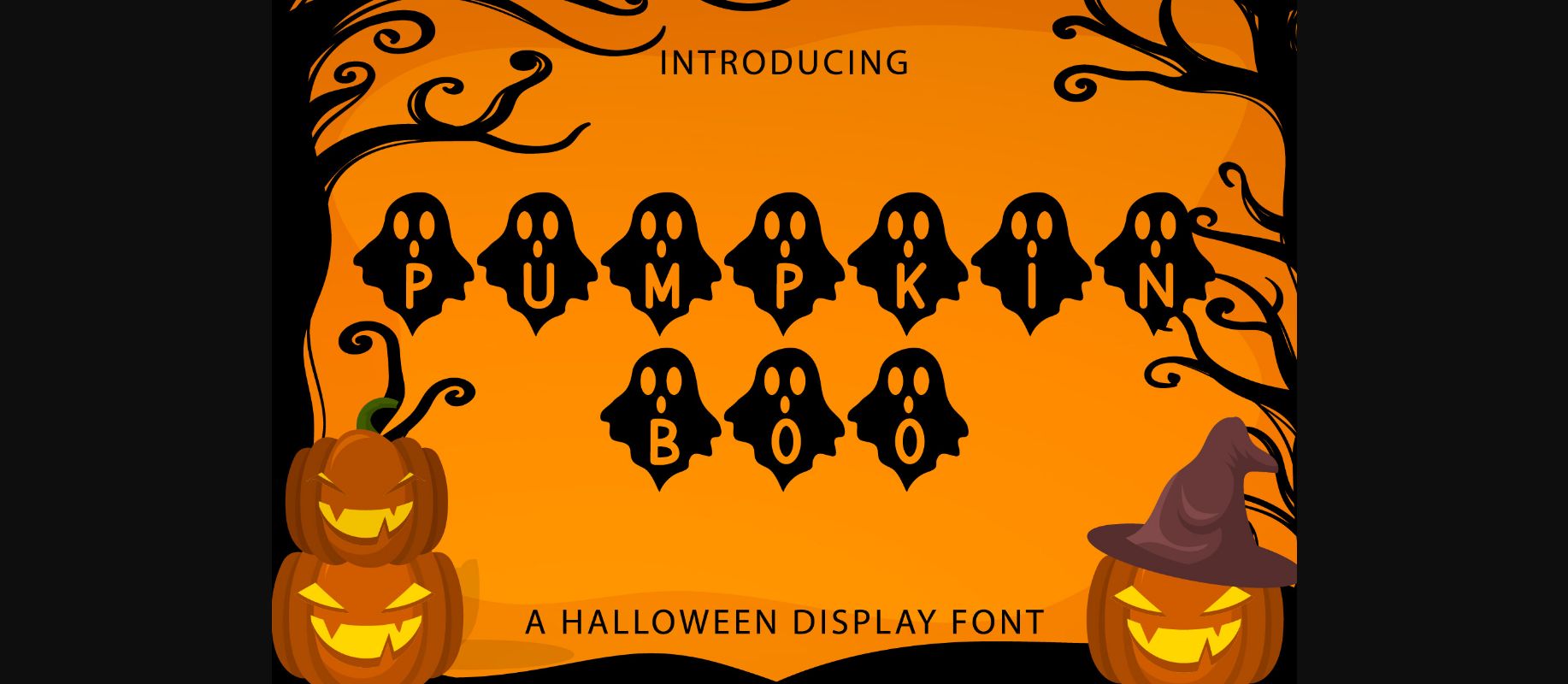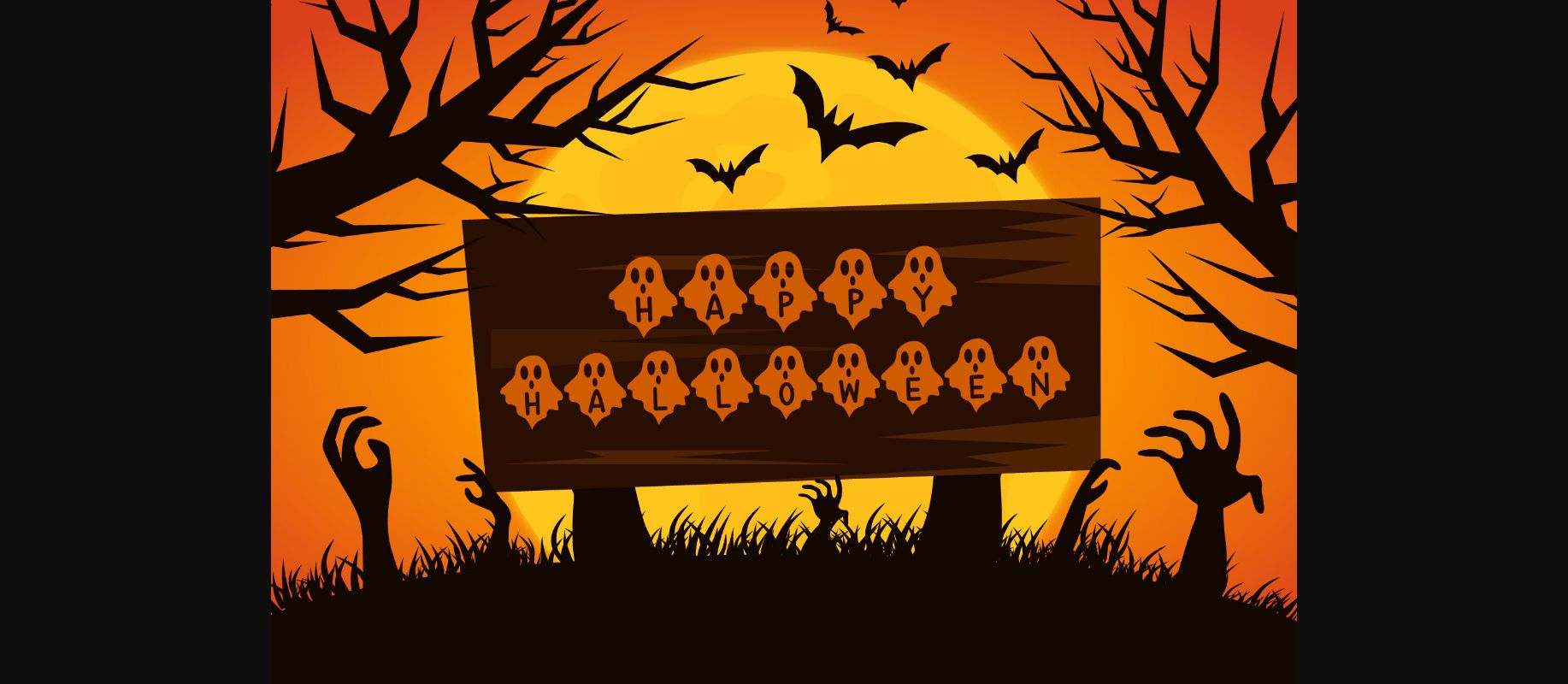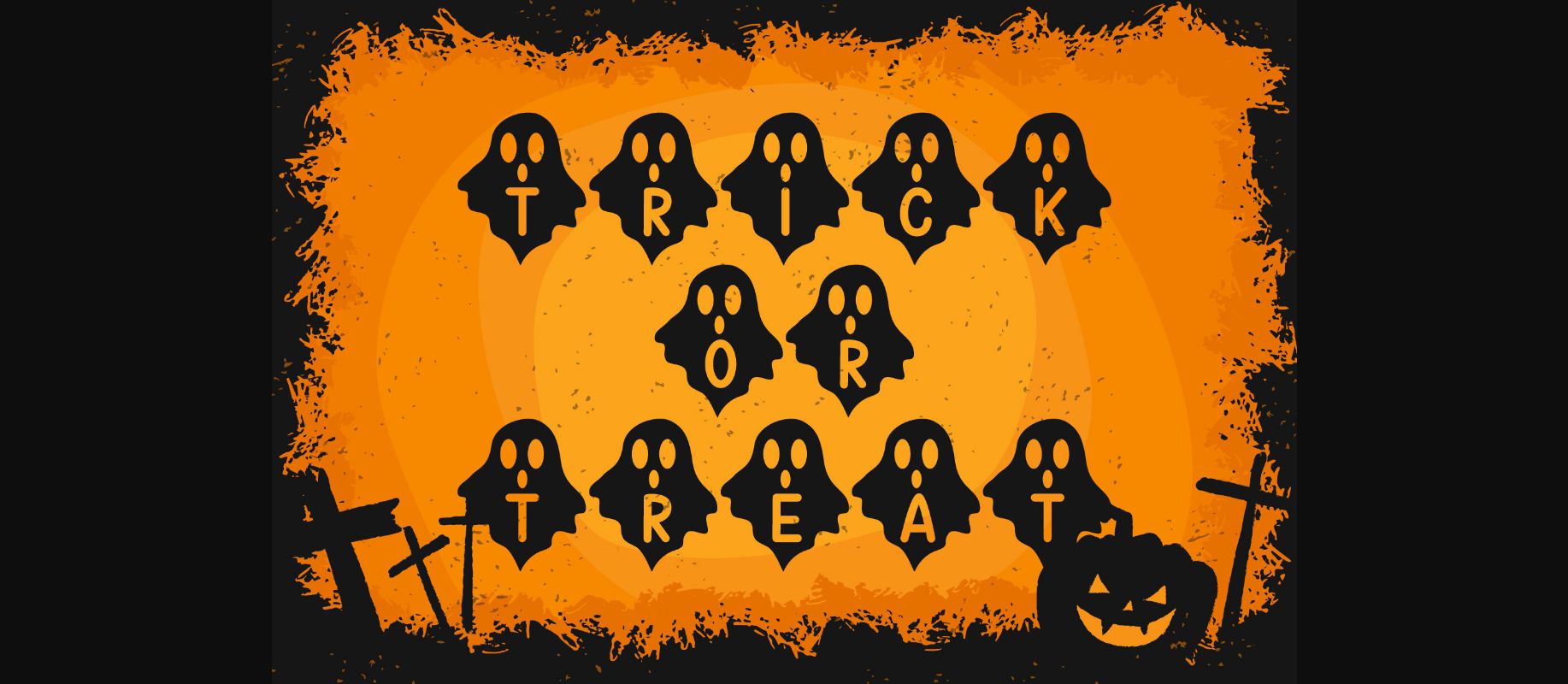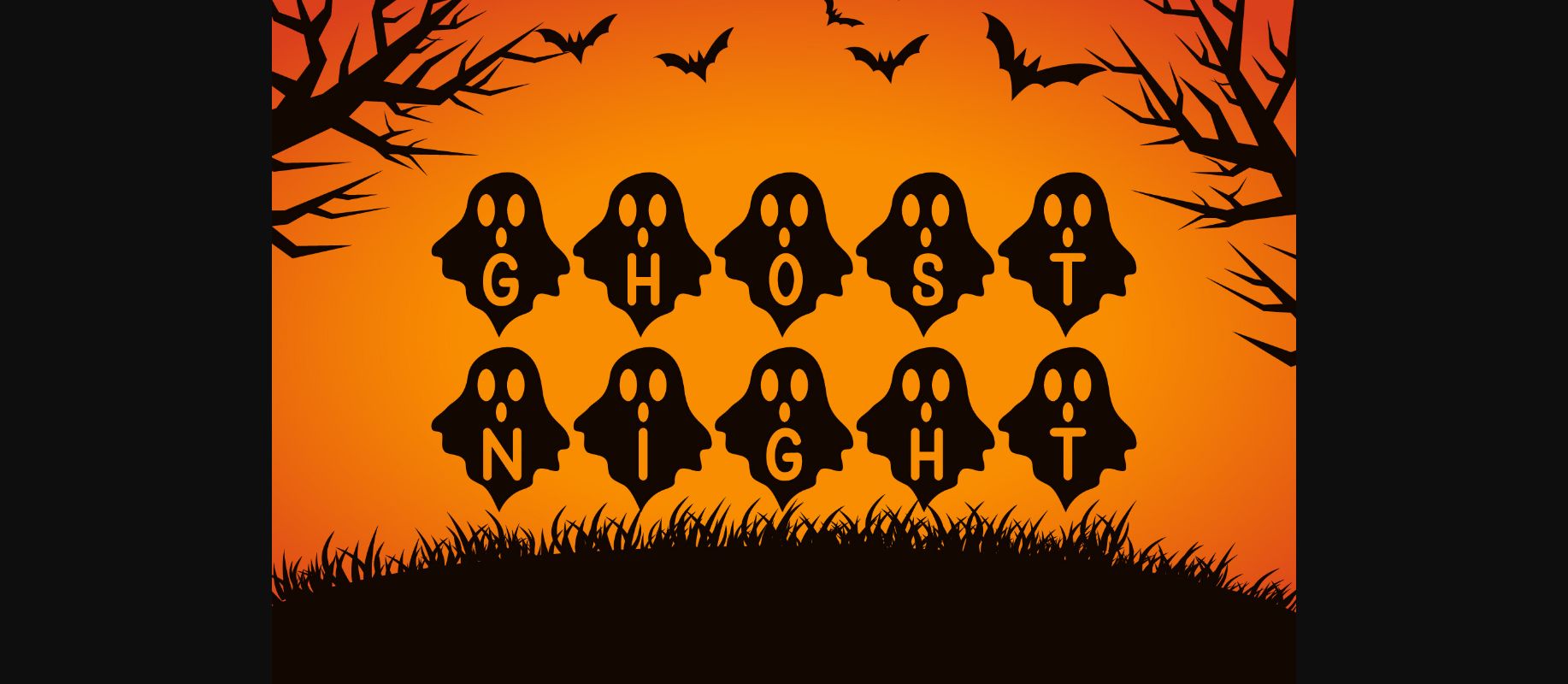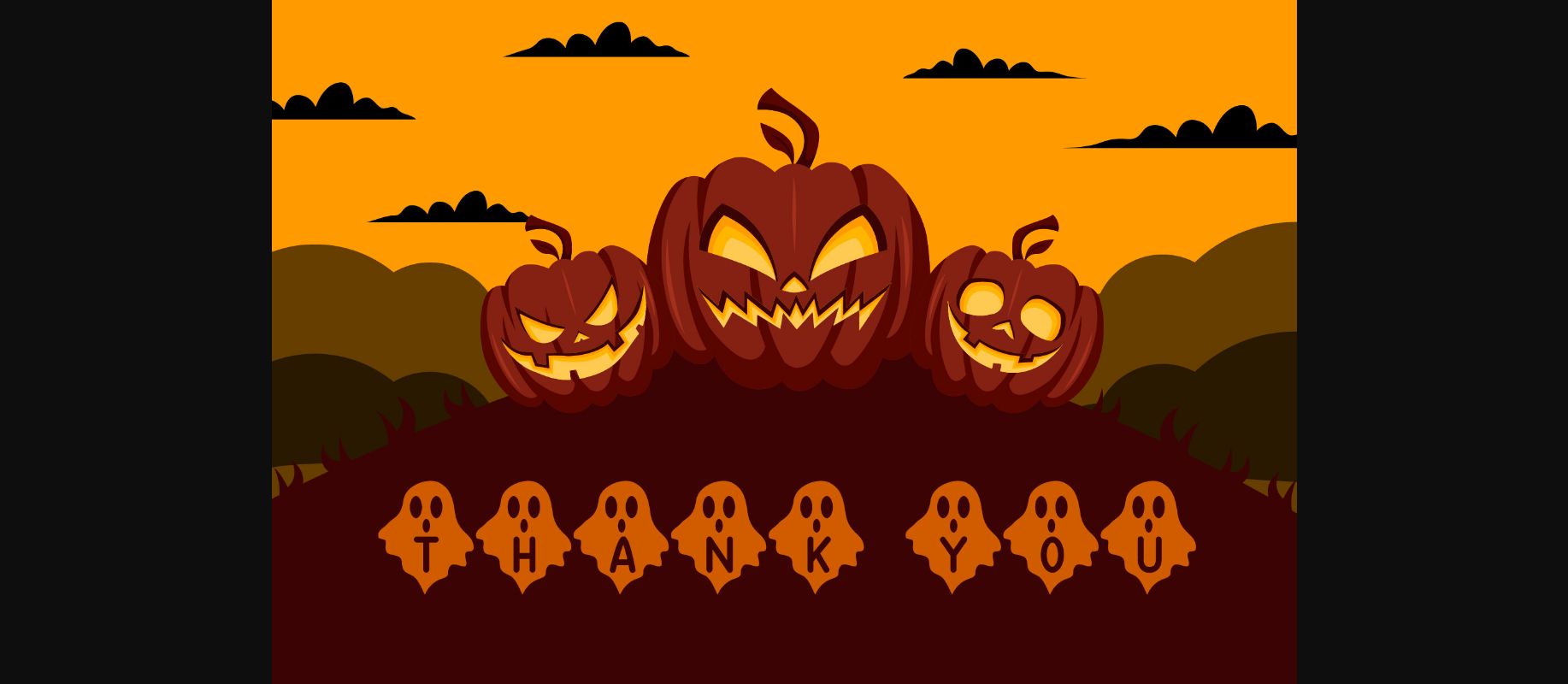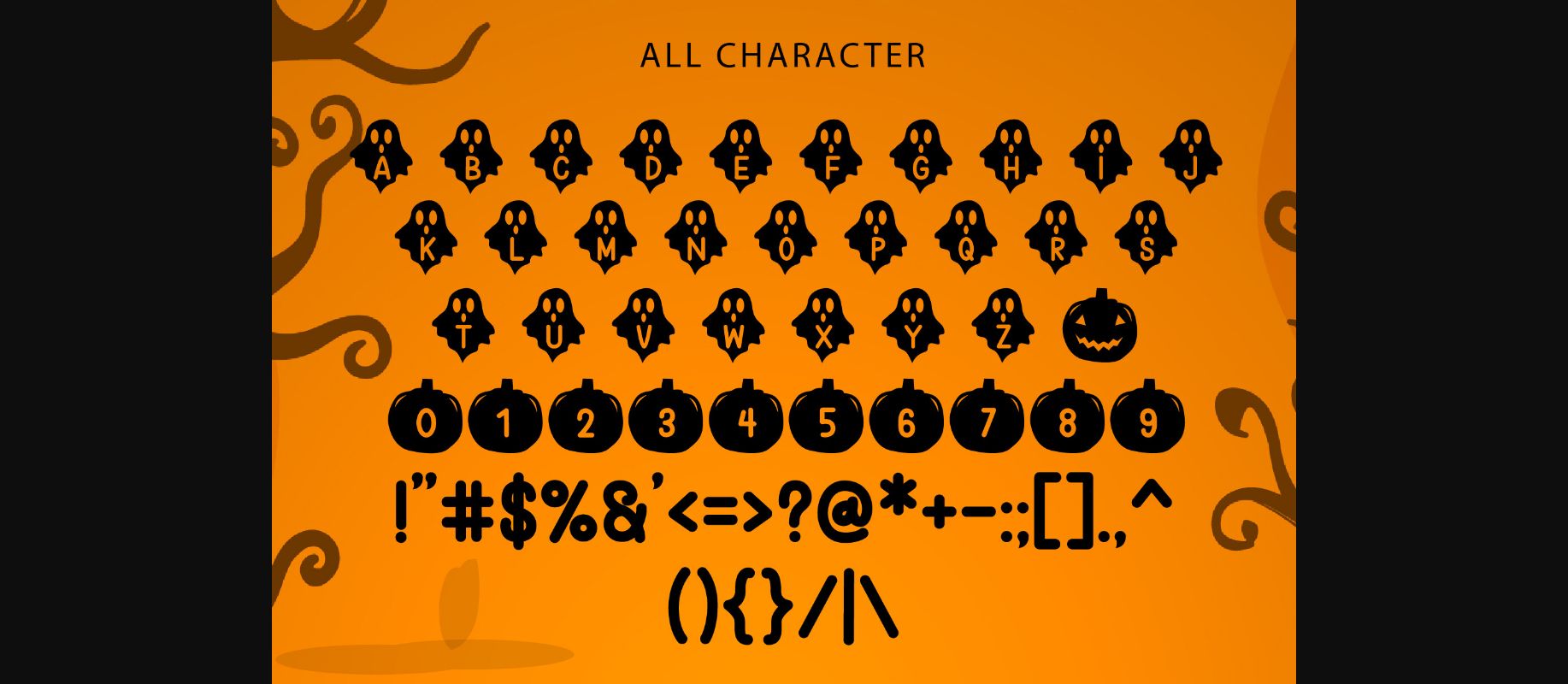
Pumpkin Boo Font
About Pumpkin Boo Font
Pumpkin Boo is a spooky and fun Halloween font. Pumpkin Boo is perfectly suited for poster designs, print materials, or digital artwork, Halloween-style fonts infuse your designs with both amusement and enigma during a time when everyone feels the ultimate excitement of the Halloween season.